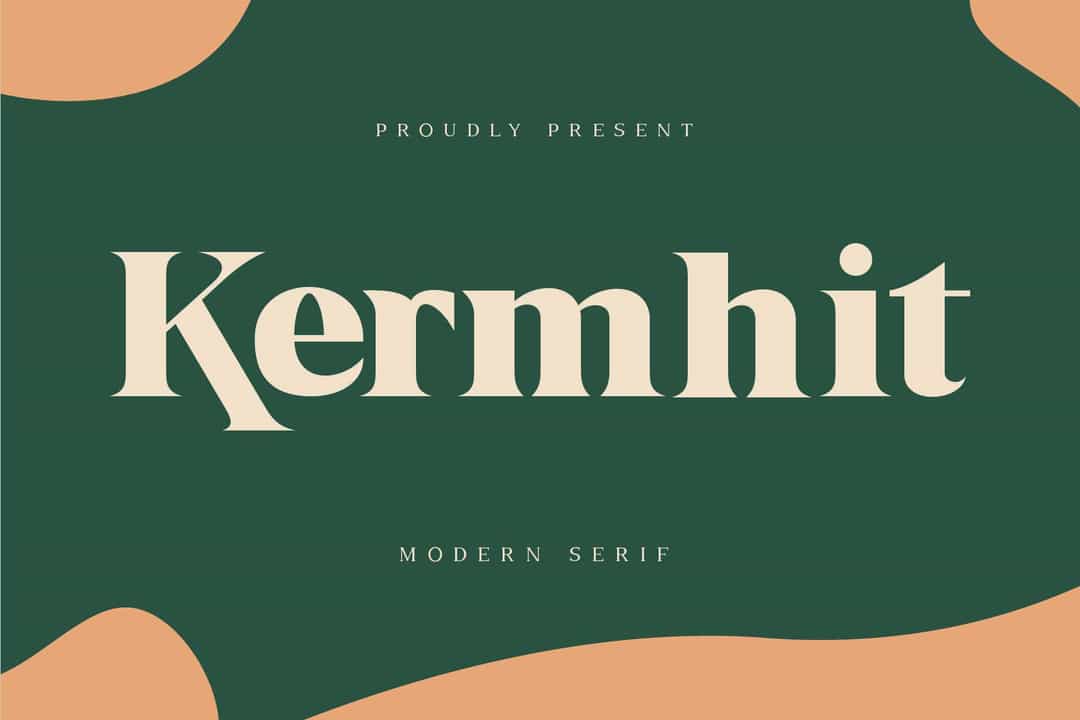
Kermhit is an elegant and powerful serif font which has exquisite elegance combined with the strength and liveliness of the bold – it gives a retro feel to your designs!